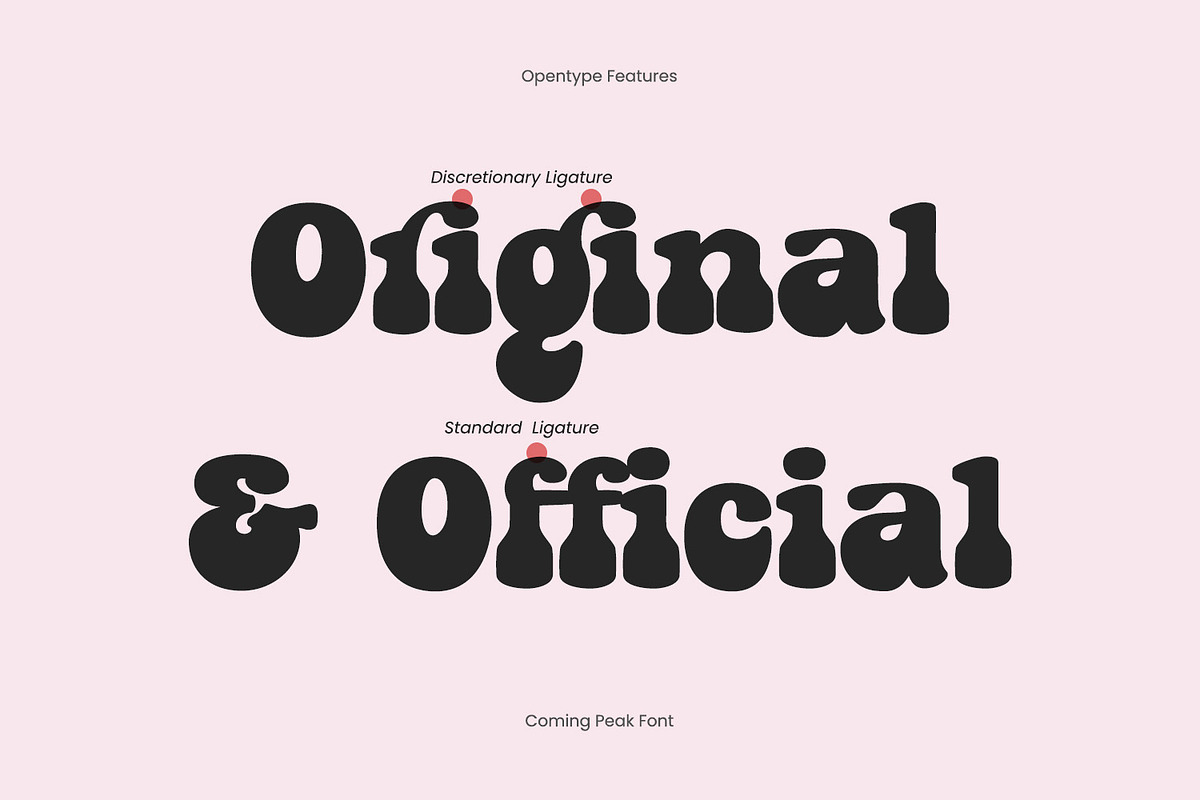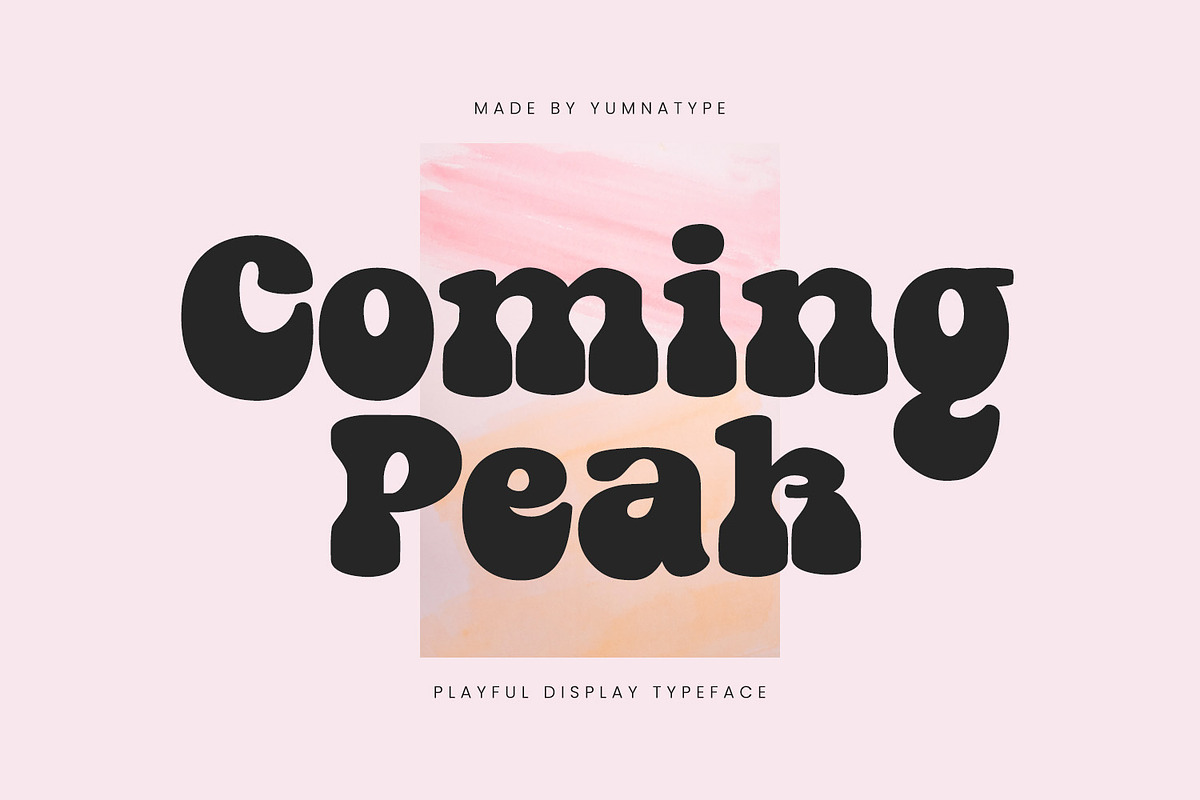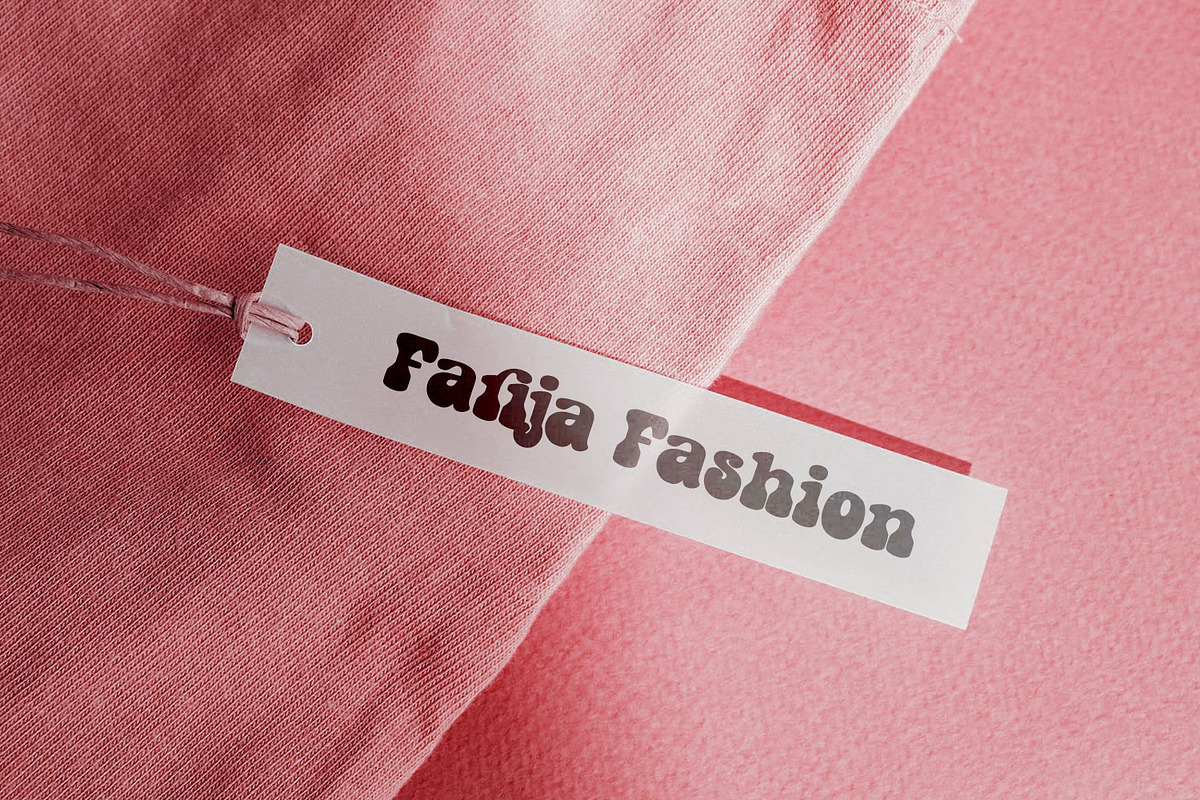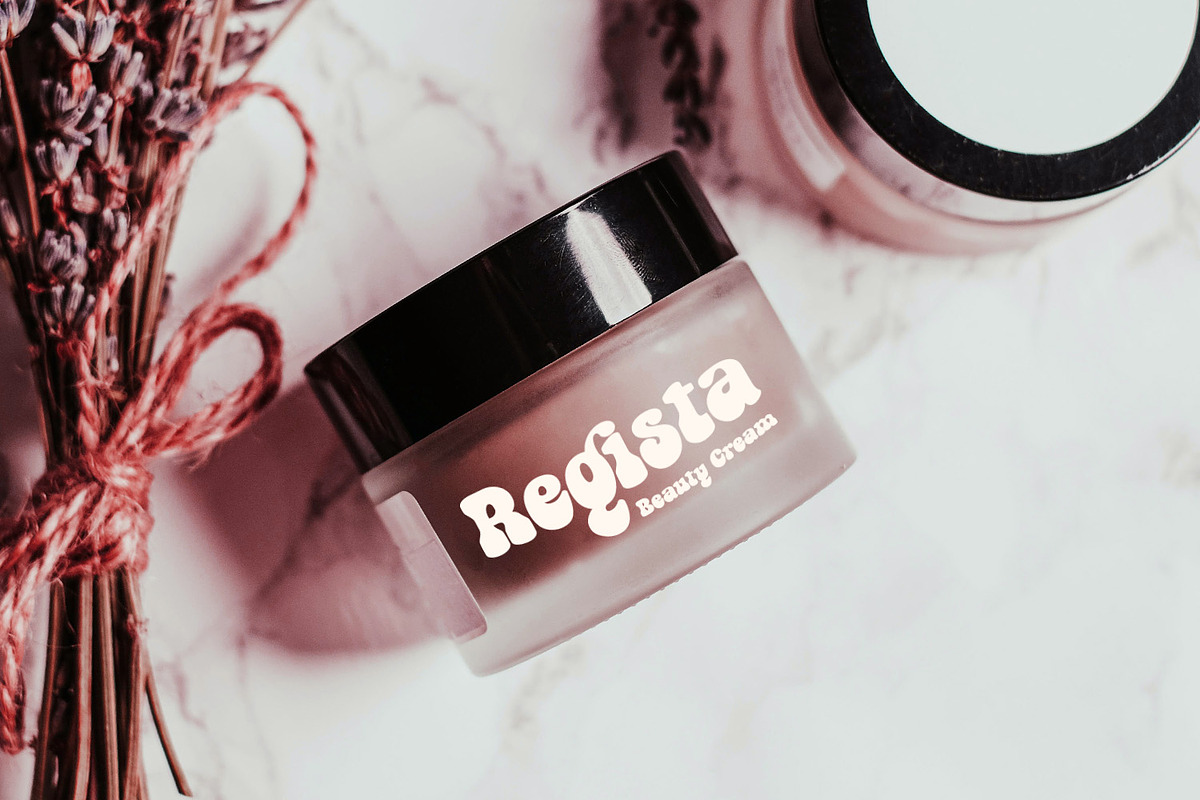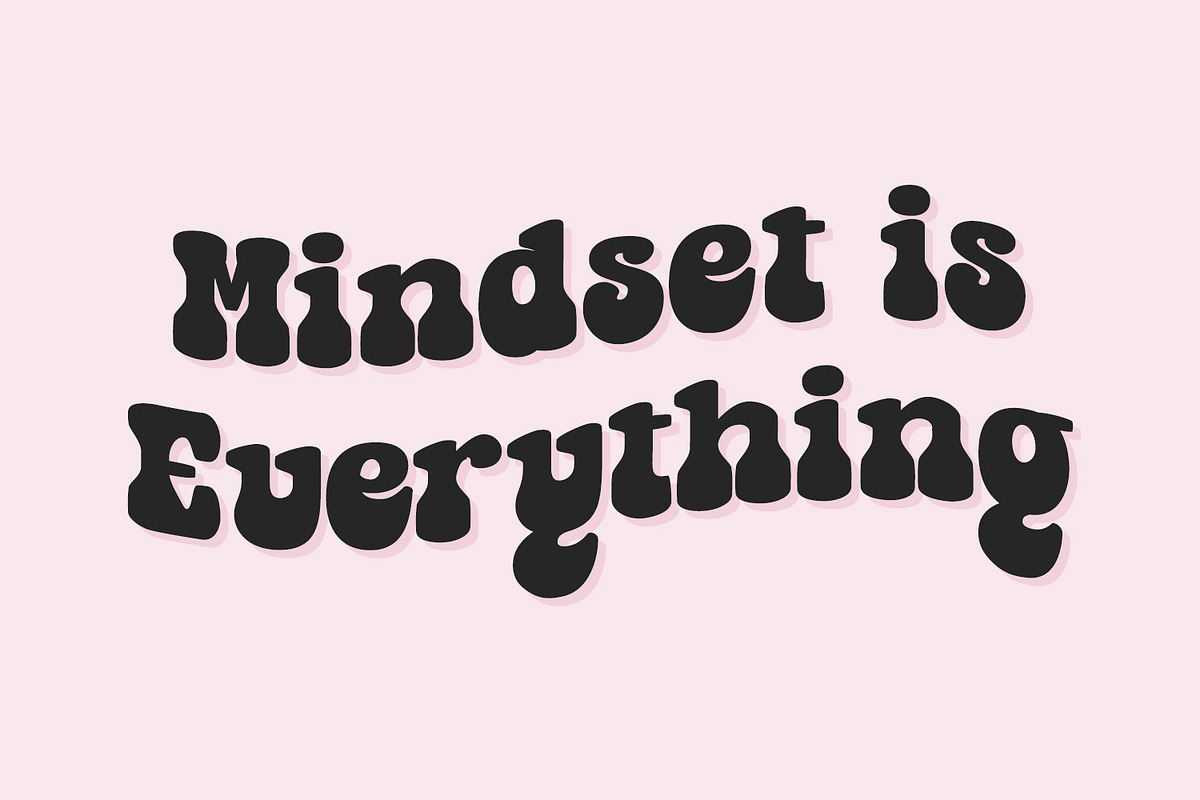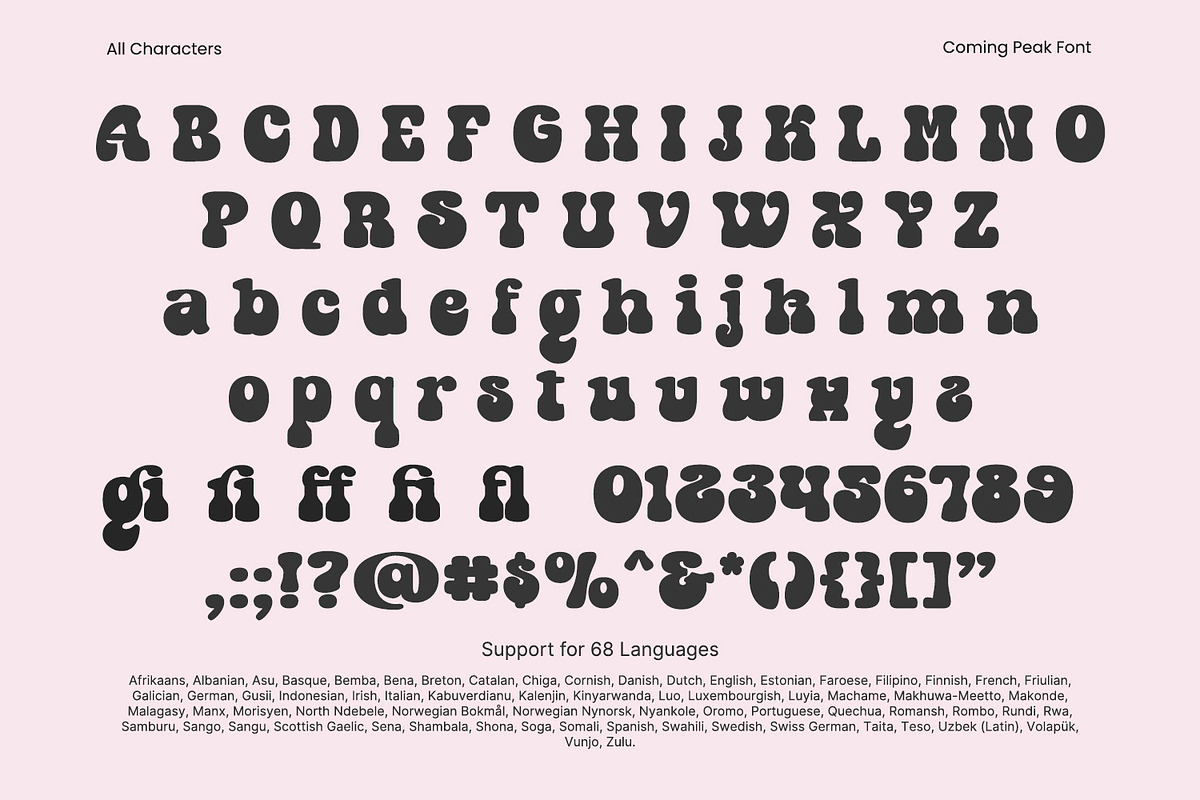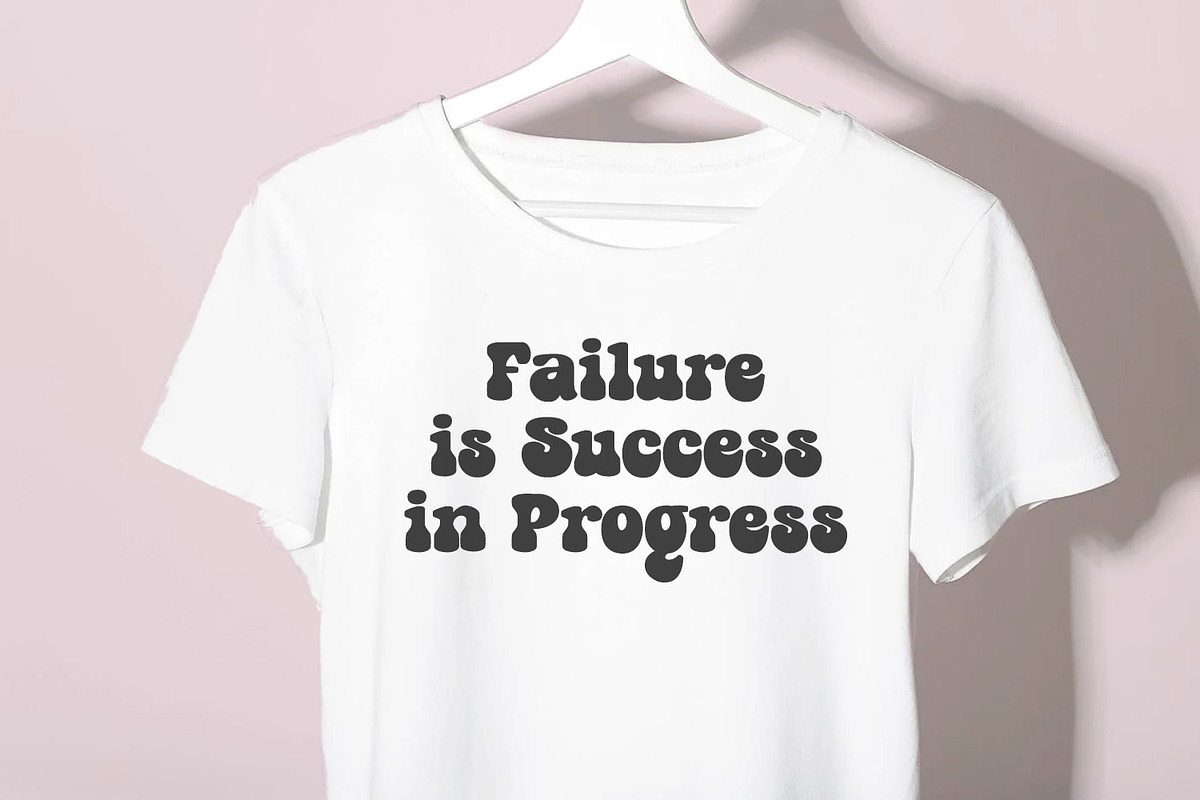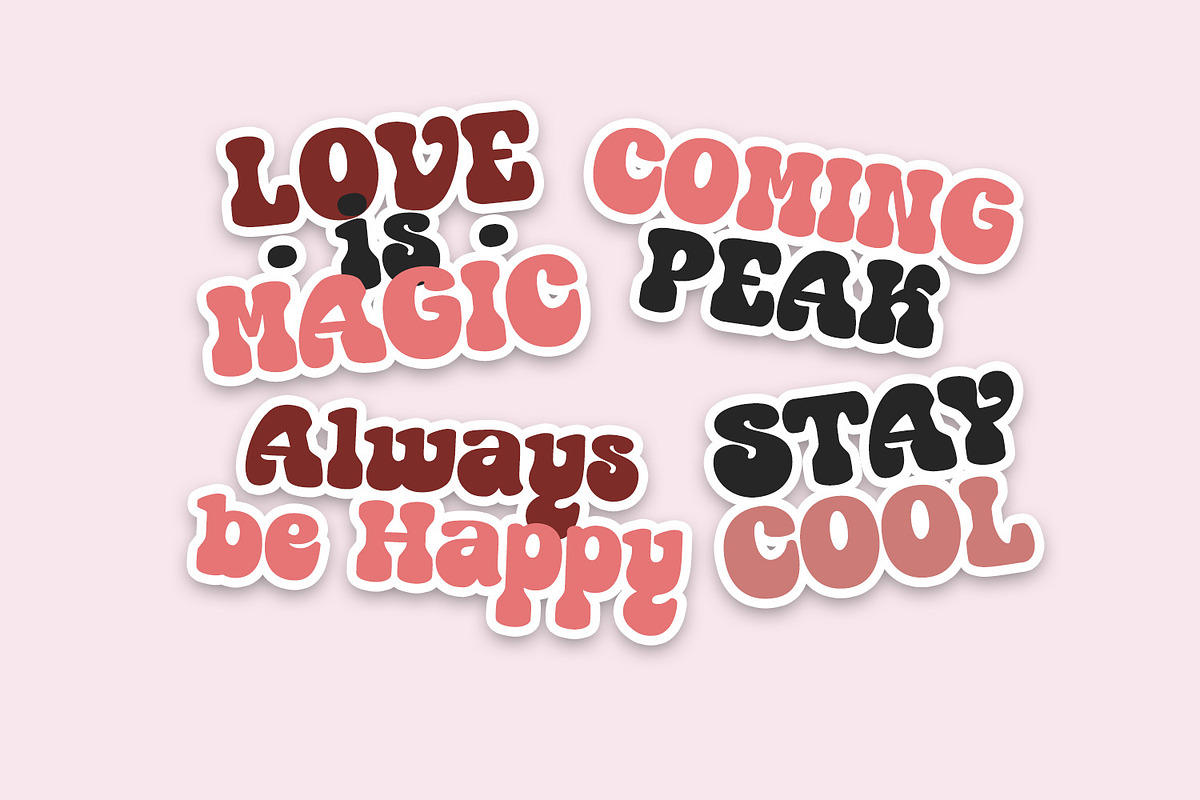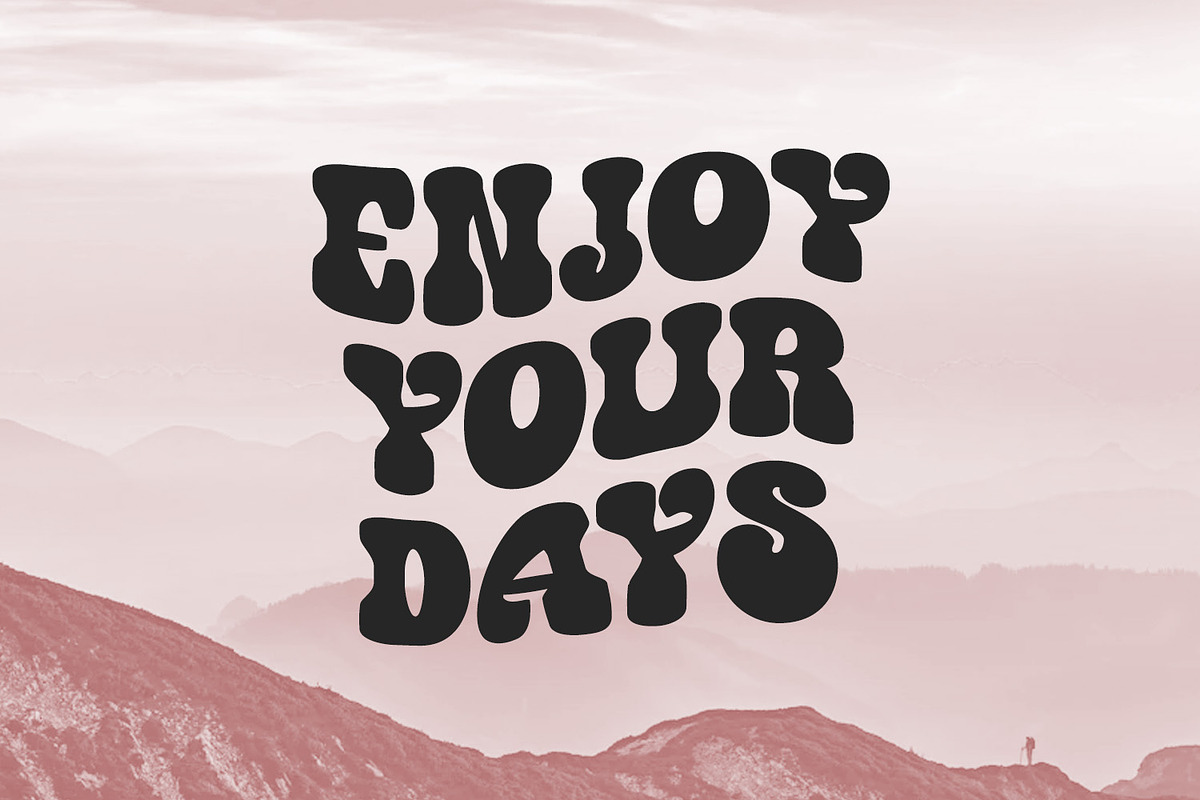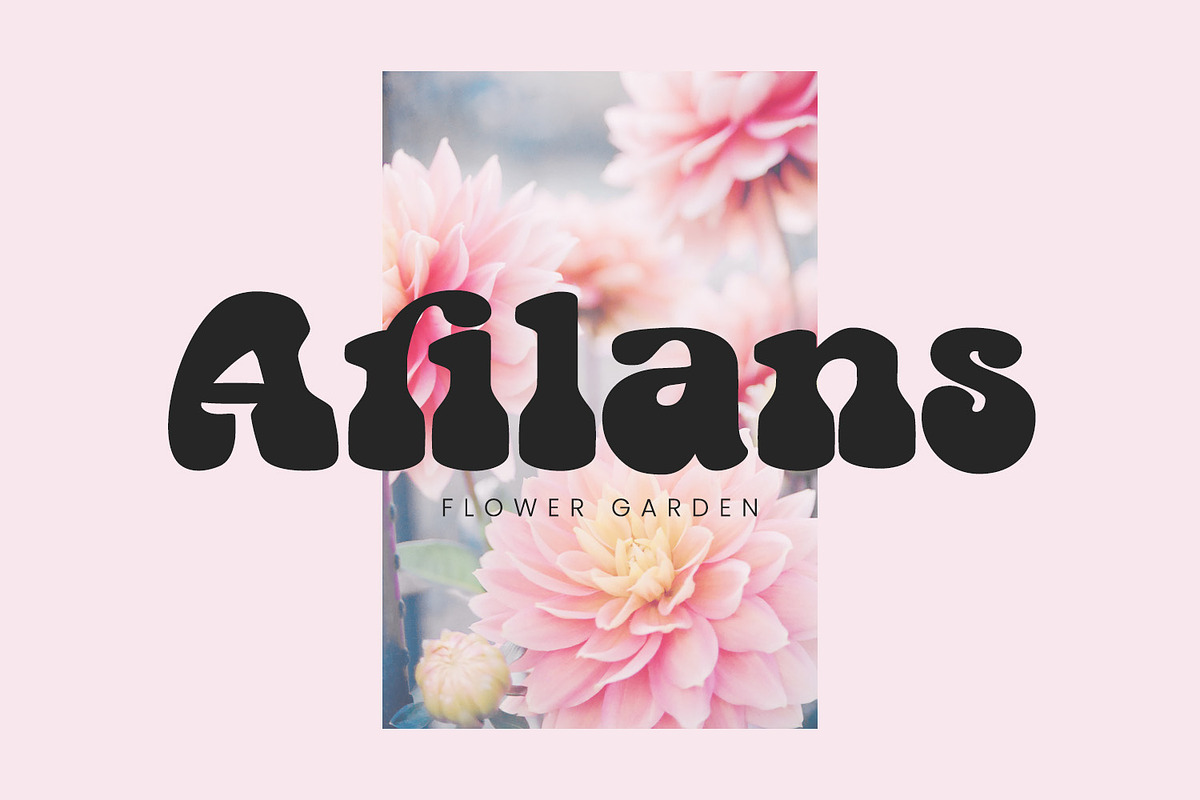
Coming Peak
Coming Peak is a striking display font that embodies the essence of modernity with its bold design and rounded shapes. Crafted with a thick weight and high contrast, this font commands attention and makes a powerful statement in any design application.
The letters of Coming Peak are meticulously designed with rounded shapes that exude a sense of softness and elegance. Despite its boldness, the rounded edges lend a touch of warmth and approachability to the font. Versatile and adaptable, Coming Peak is equally effective in both print and digital media. Its bold design and rounded shapes ensure clarity and legibility, even at smaller sizes. In addition, enjoy the features here.
Coming Peak fits in headlines, logos, posters, flyers, branding materials, greeting cards, print media, editorial layouts, and many more designs. Find out more ways to use this font by taking a look at the font preview.